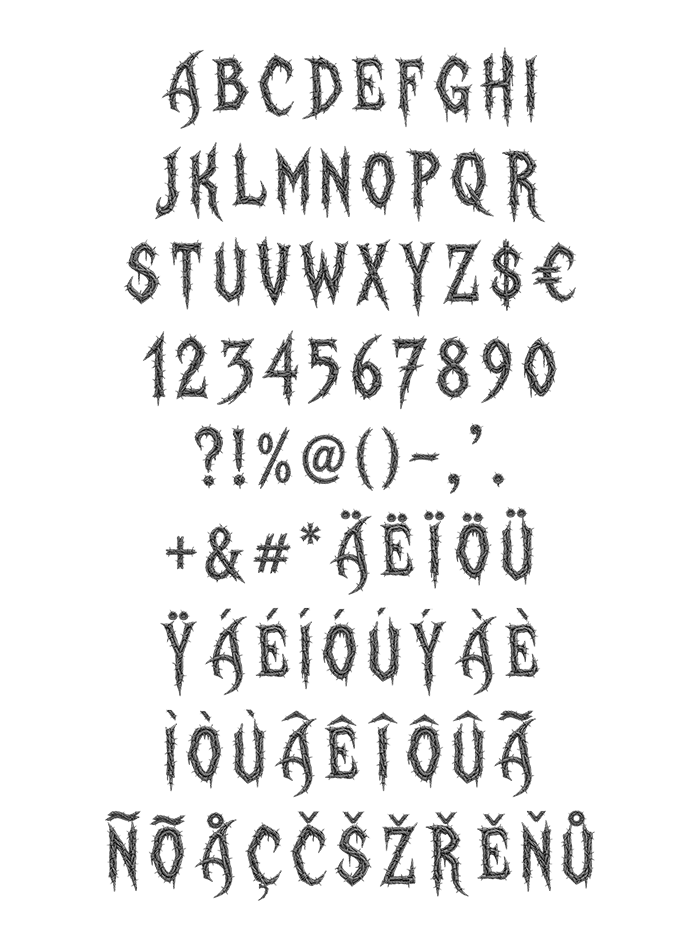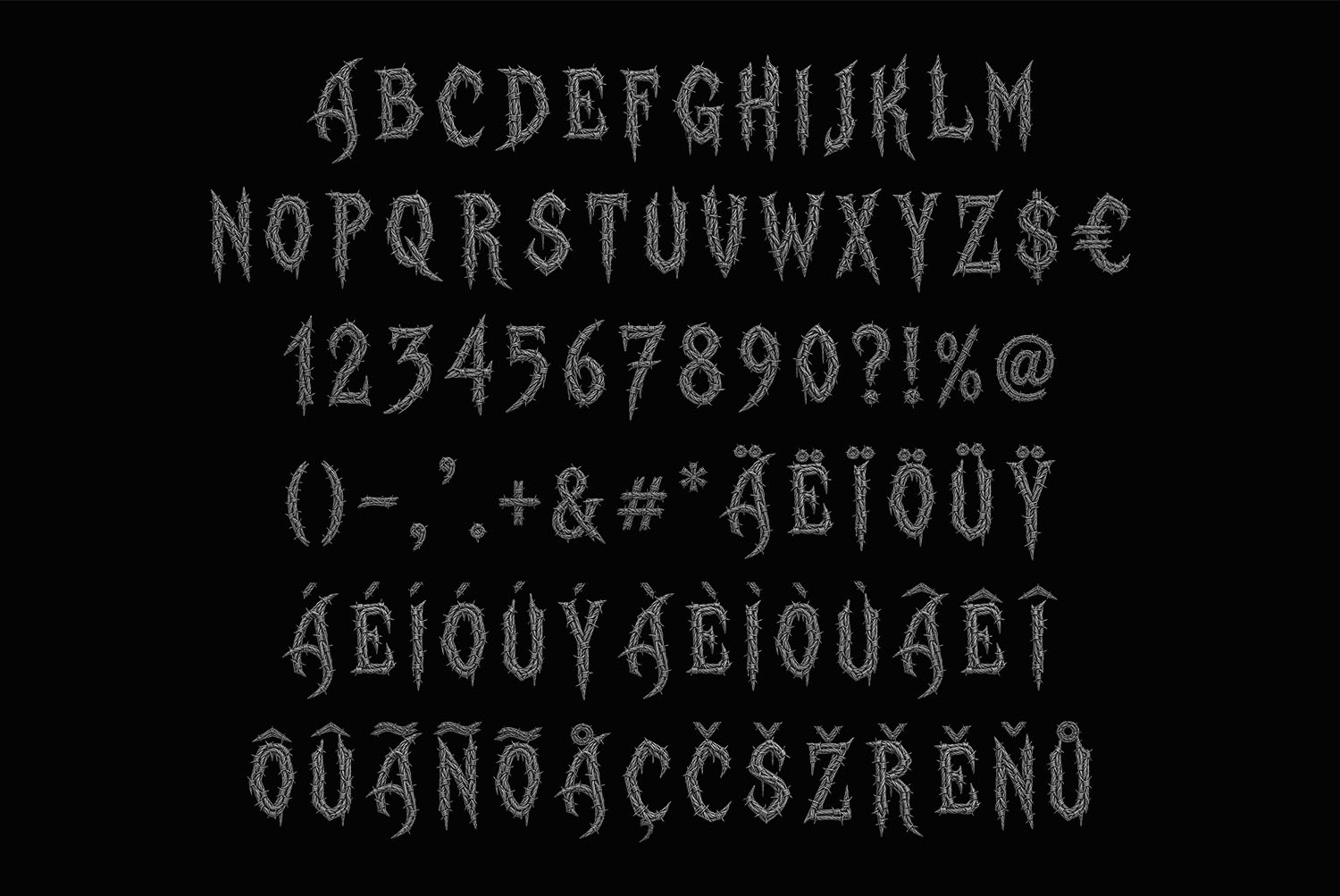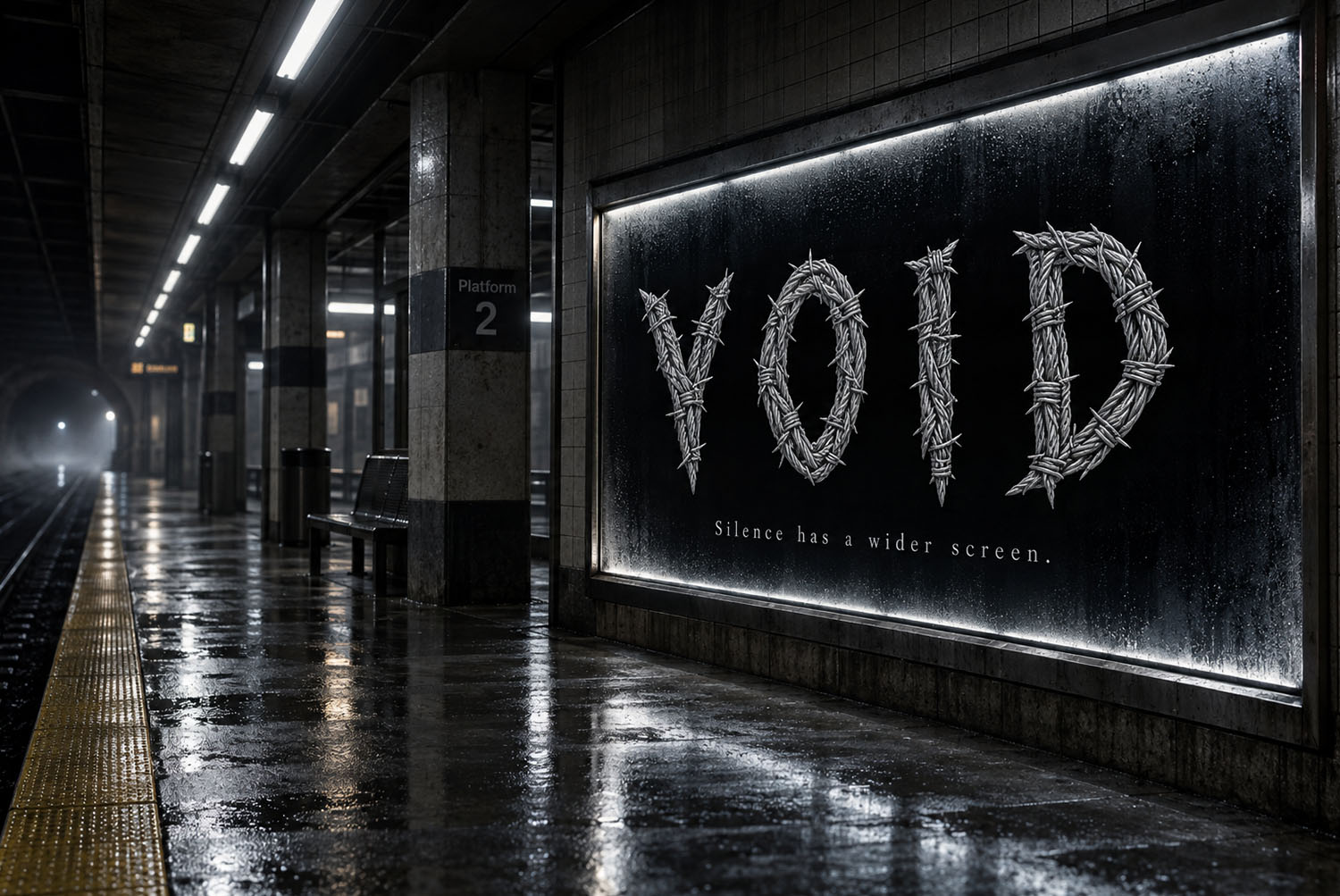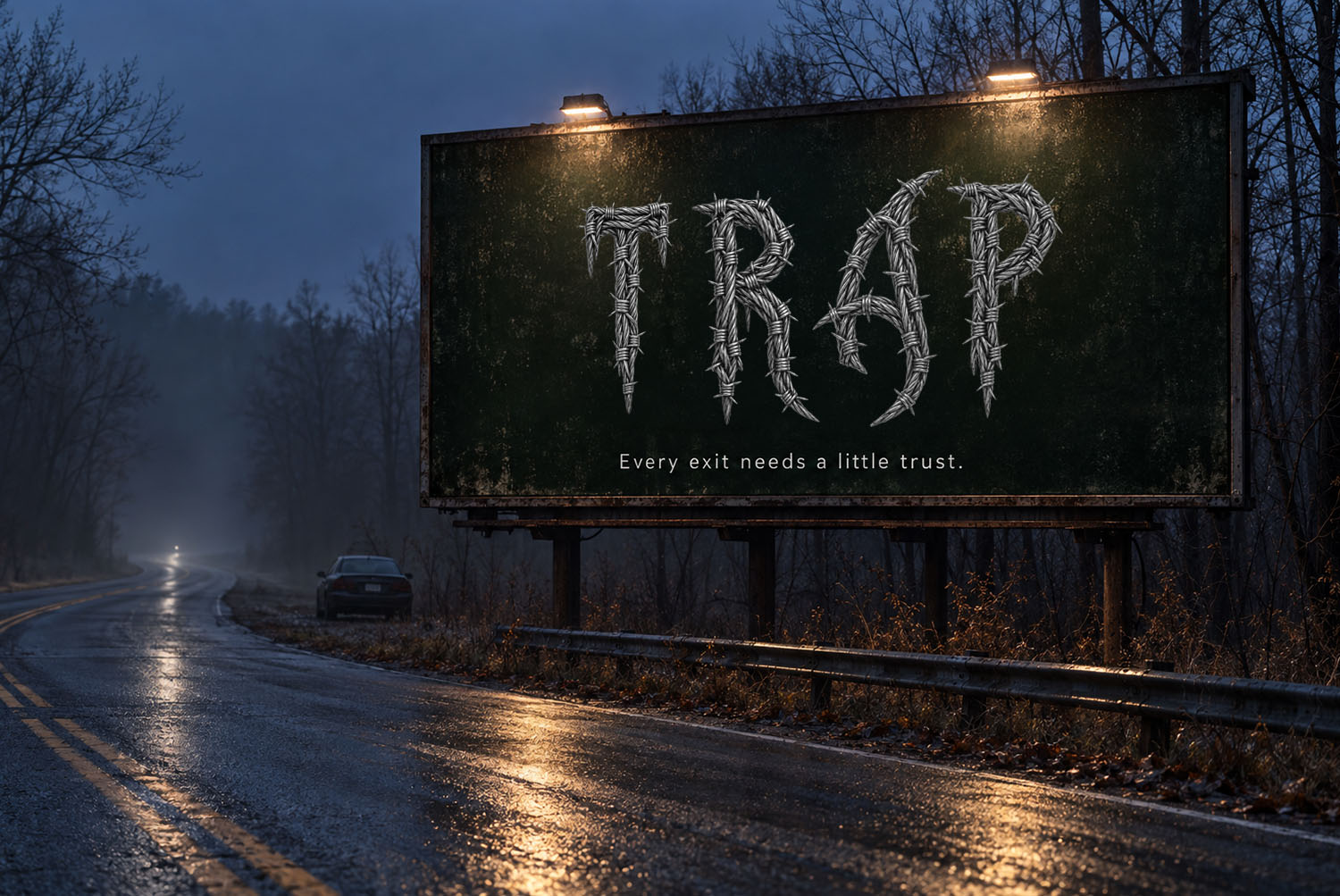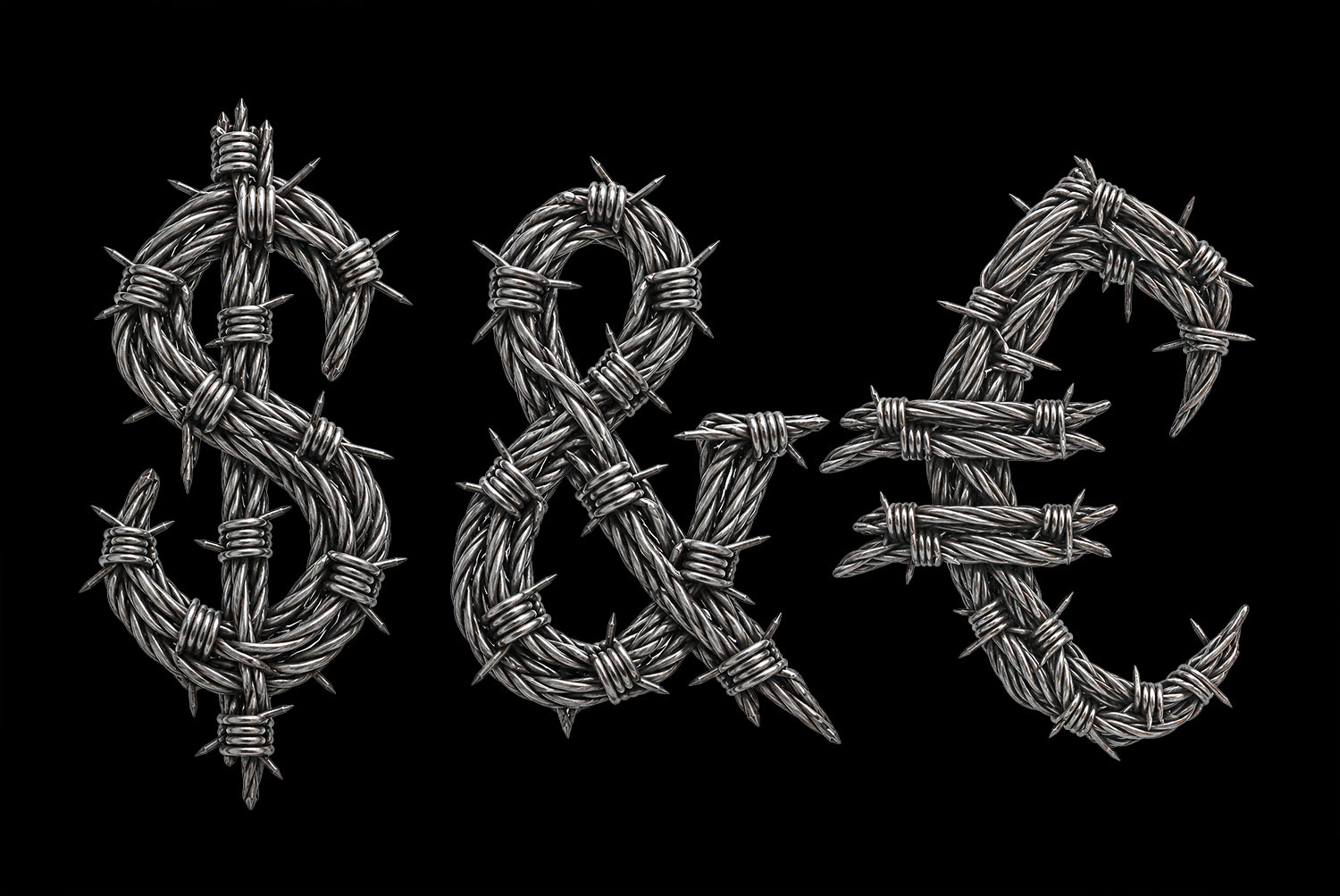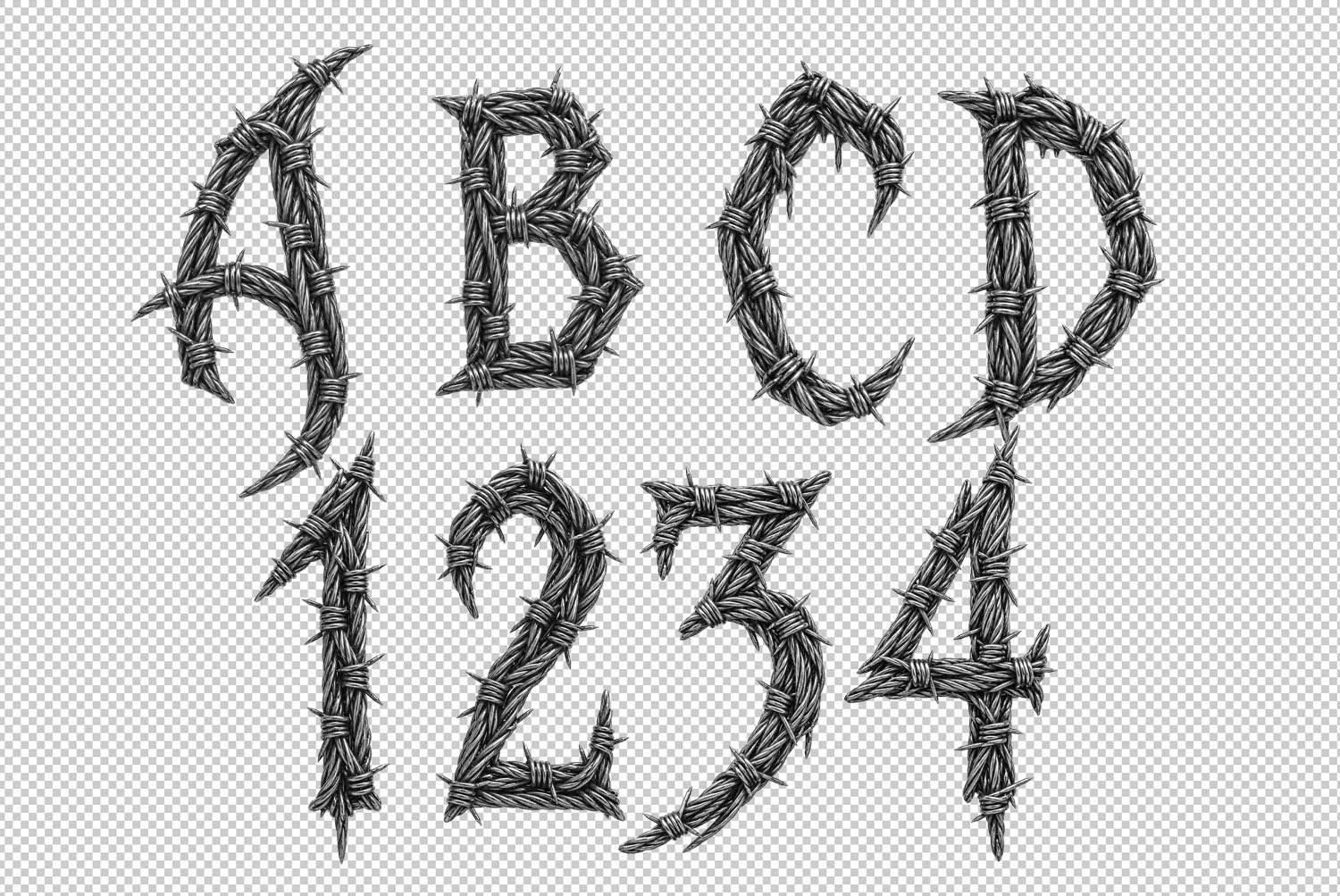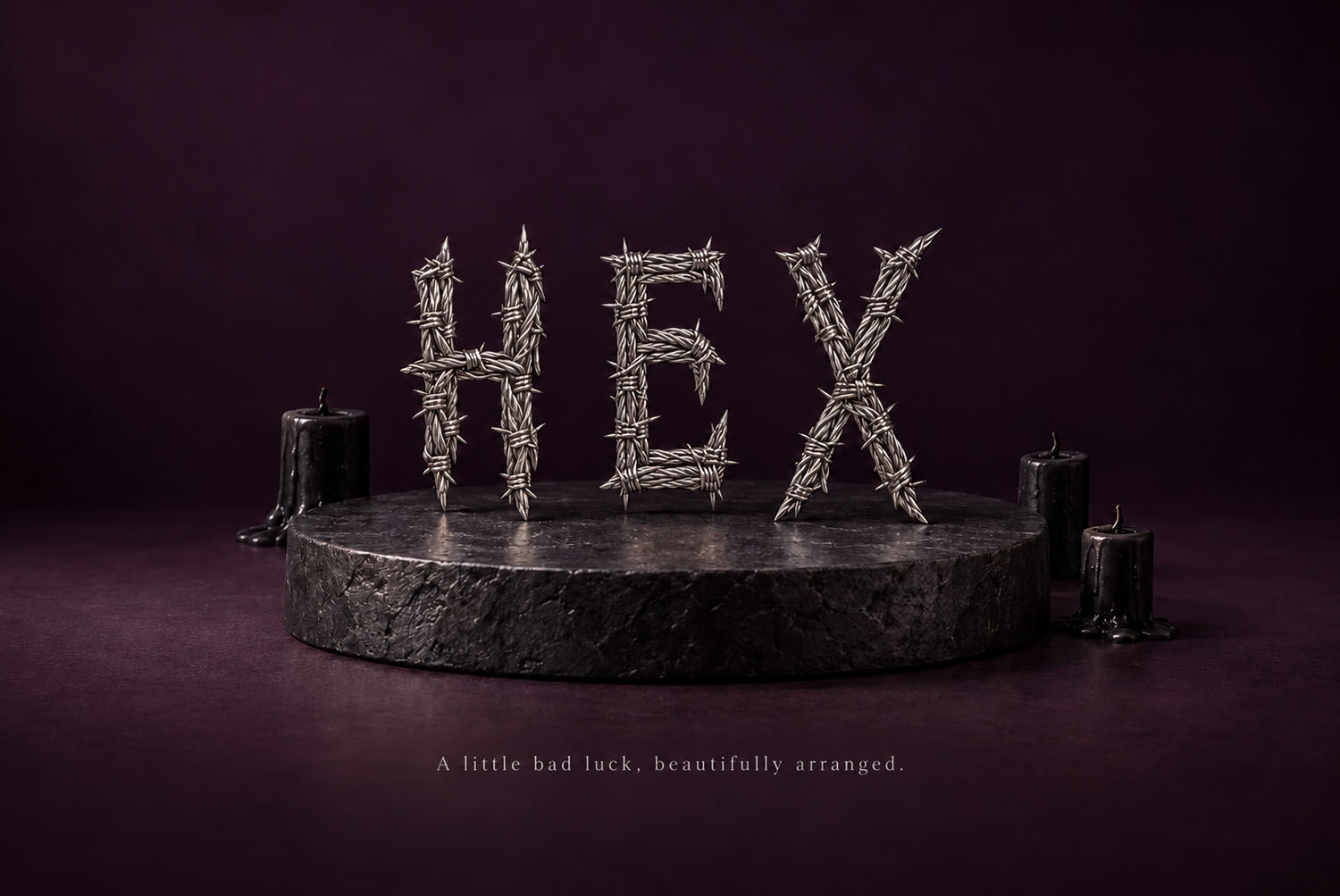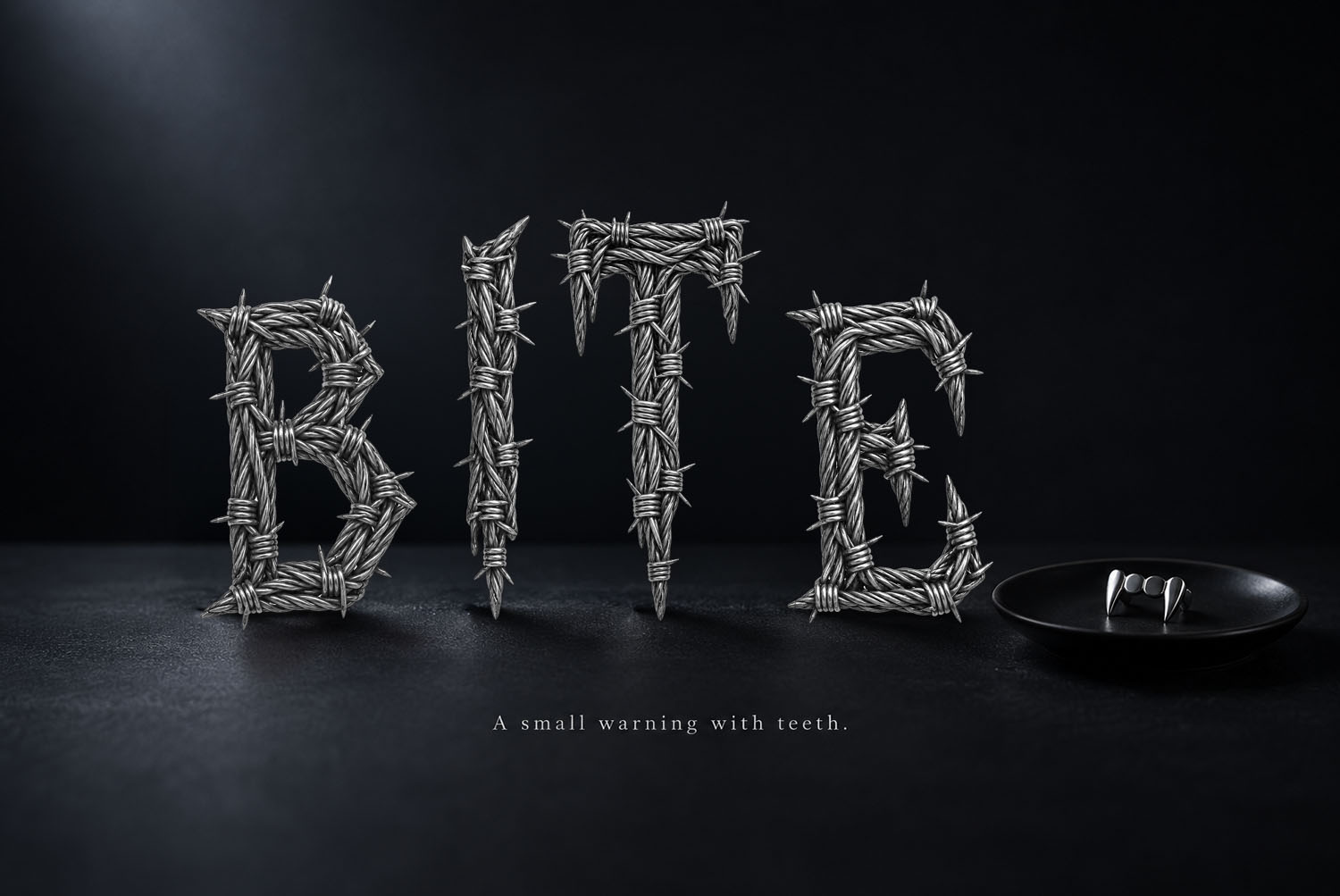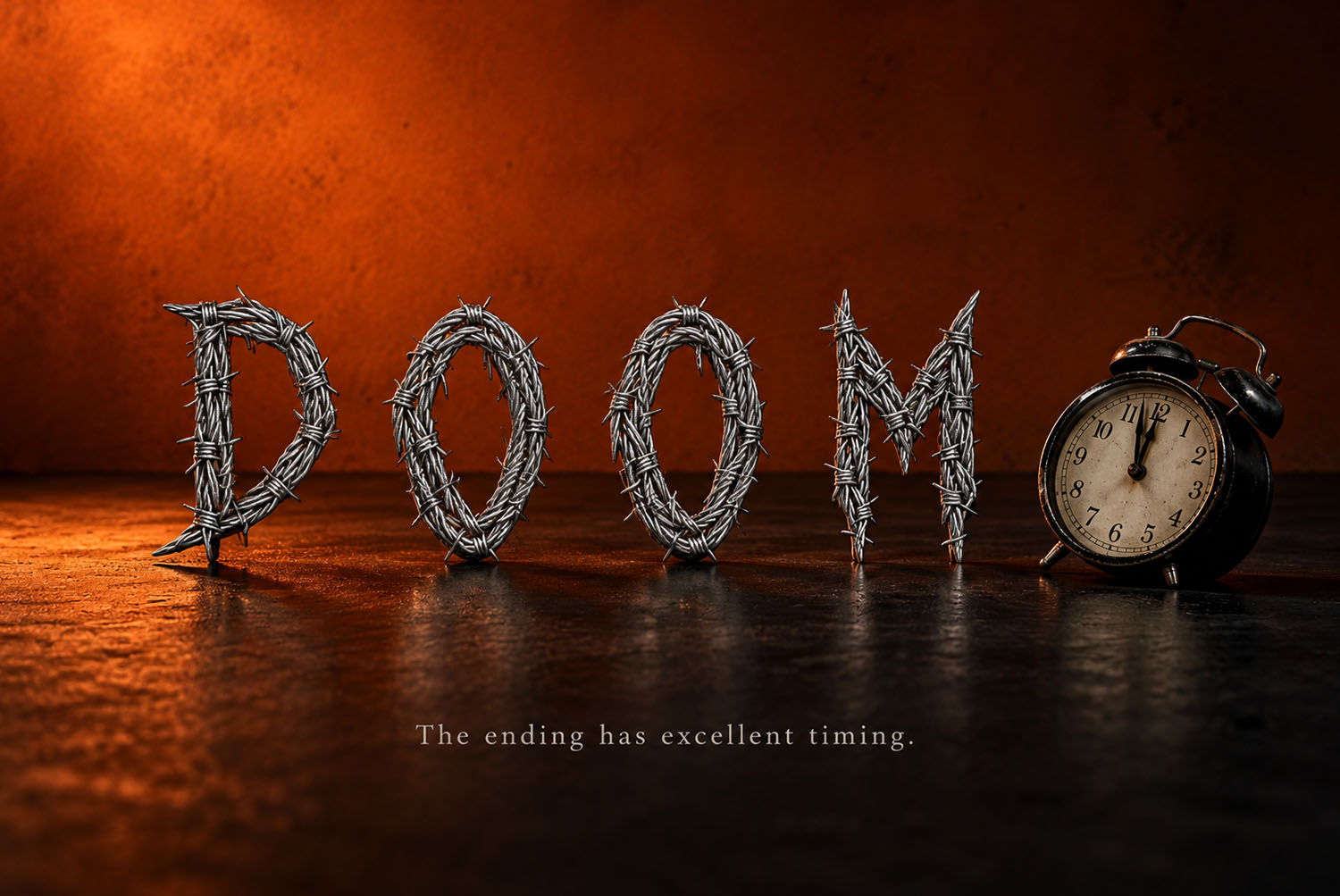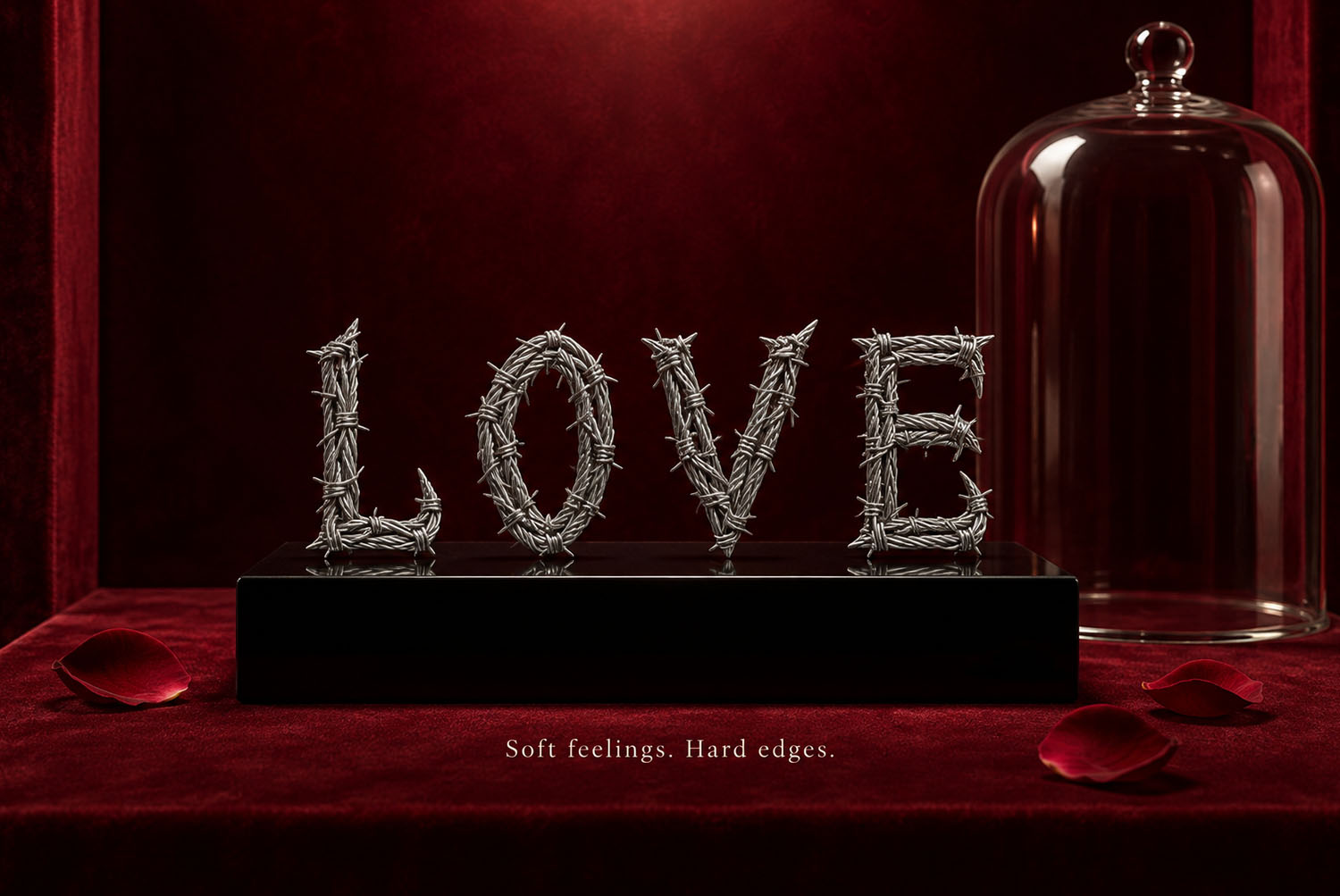
Gothic Barbed Wire Font. Wound Steel Blackletter Caps
Gothic Barbed Wire Font winds several strands of steel into each capital, so the letters read solid rather than drawn. Barbs bristle along every edge, the stems taper to points, and the metal stays cold silver-grey. It arrives as an OTF you type with, plus separate PNG letters on transparent backgrounds. Uppercase only, with a long accent row.
Gothic Barbed Wire Font Winds Steel Into Blackletter
Gothic Barbed Wire Font builds each capital from several strands, because one wire alone would leave the letter hollow. The strands cross and overlap, so the shape reads solid rather than drawn. Underneath sits a narrow gothic skeleton, since the proportions come straight from blackletter. Stems taper to points as well, where the last twist runs out. Naturally the metal stays cold silver-grey, with no rust anywhere.
Barbs Point Outward on Every Stroke
Then there are the barbs. They bristle along every edge, though they never line up in a repeating pattern. That randomness matters, because evenly spaced barbs would look machine-made instead of hand-wound. Some catch the light too, while others sit flat against the wire. Likewise the barbs throw small shadows, which keeps the surface busy. Above all, the letters hold a clean silhouette, since the wire never wanders outside the shape.
Animated preview of the Gothic Barbed Wire Font spelling GO in wound steel wire
Where a Fence Alphabet Belongs
Metal record sleeves reach for it first, obviously. It suits a horror poster as well, since one word already threatens the reader. Tattoo studios print it on shirts too, while gig flyers run it at full width. A word like DOOM or HEX works best in Gothic Barbed Wire Font, because short and blunt beats a sentence. Skip anything under twenty points though, because the barbs turn into fuzz.
Gothic Barbed Wire Font and the Accents It Carries
Light cover for the Gothic Barbed Wire Font spelling FONT beside a coil of wire
Dark blueprint cover for the Gothic Barbed Wire Font with handwritten construction notes
Gothic Barbed Wire Font character set on black, including the full accent row
Transparent PNG letters and numbers of the Gothic Barbed Wire Font on a checkerboard
Dollar sign, ampersand and euro sign of the Gothic Barbed Wire Font on black
Gothic Barbed Wire Font spelling VOID on a lit panel beside a wet metro platform
Gothic Barbed Wire Font spelling TRAP on a billboard above a wet night road
Gothic Barbed Wire Font spelling SILENCE across a dark magazine spread
Gothic Barbed Wire Font spelling CHAIN on a record sleeve beside a turntable
Gothic Barbed Wire Font spelling THORN across a black t-shirt in a backstage mirror
Gothic Barbed Wire Font spelling HEX on a stone plinth between two candles
Gothic Barbed Wire Font spelling BITE on a dark surface beside a razor blade
Gothic Barbed Wire Font spelling DOOM against an orange wall beside an alarm clock
Gothic Barbed Wire Font spelling LOVE under a glass cloche on red velvet
Gothic Barbed Wire Font spelling ALIVE inside a lit glass vitrine